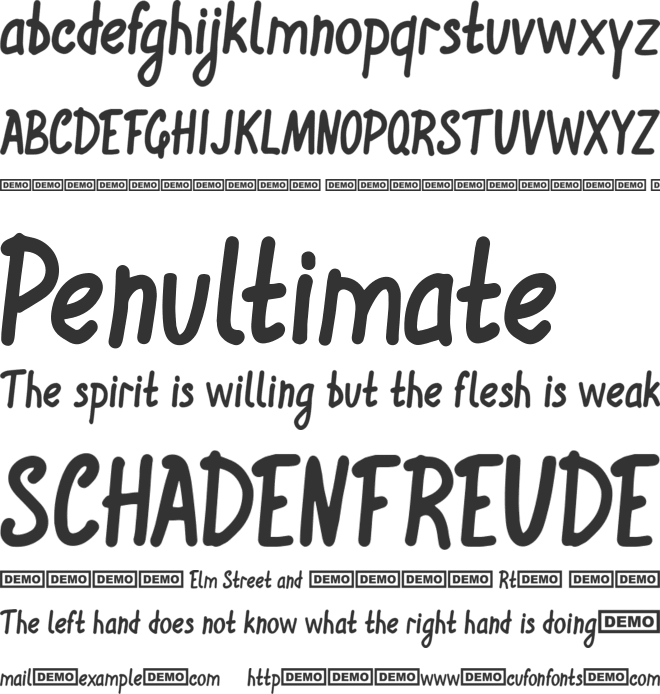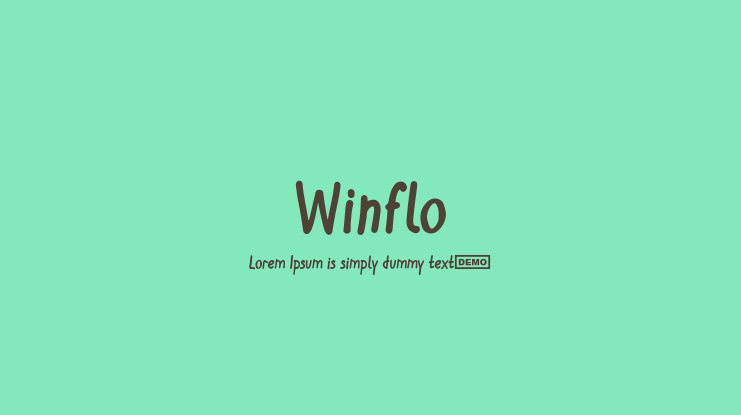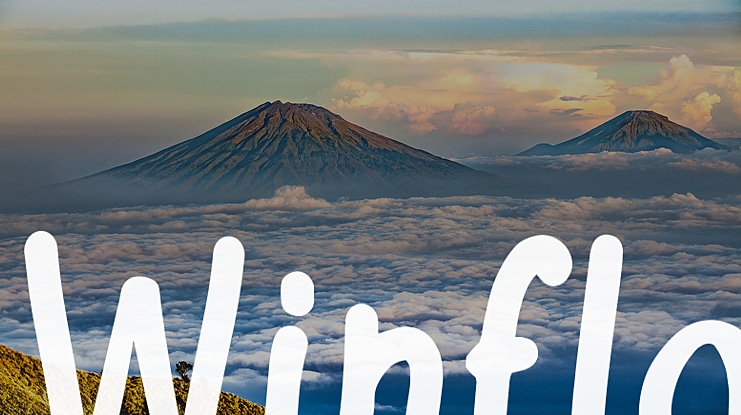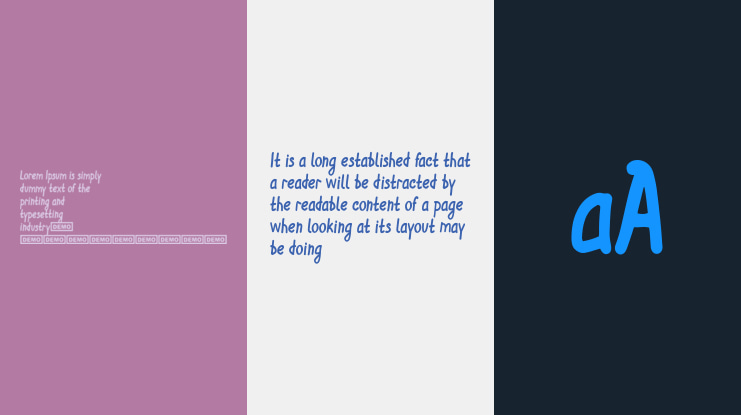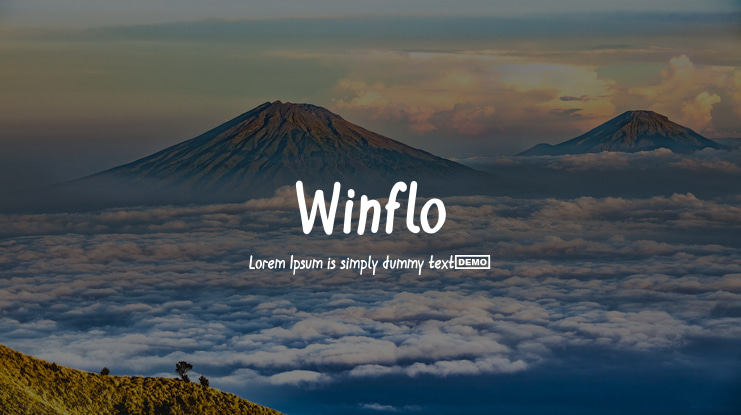
Winflo Font
Introducing my new sans-serif font Winflo, which simulates everyday handwriting better than any font you’ve seen before. Winflo will make your texts more personal and unique and will be a great addition to different script fonts. Full version of Winflo comes with Uppercase, Lowercase and Standard Punctuation.